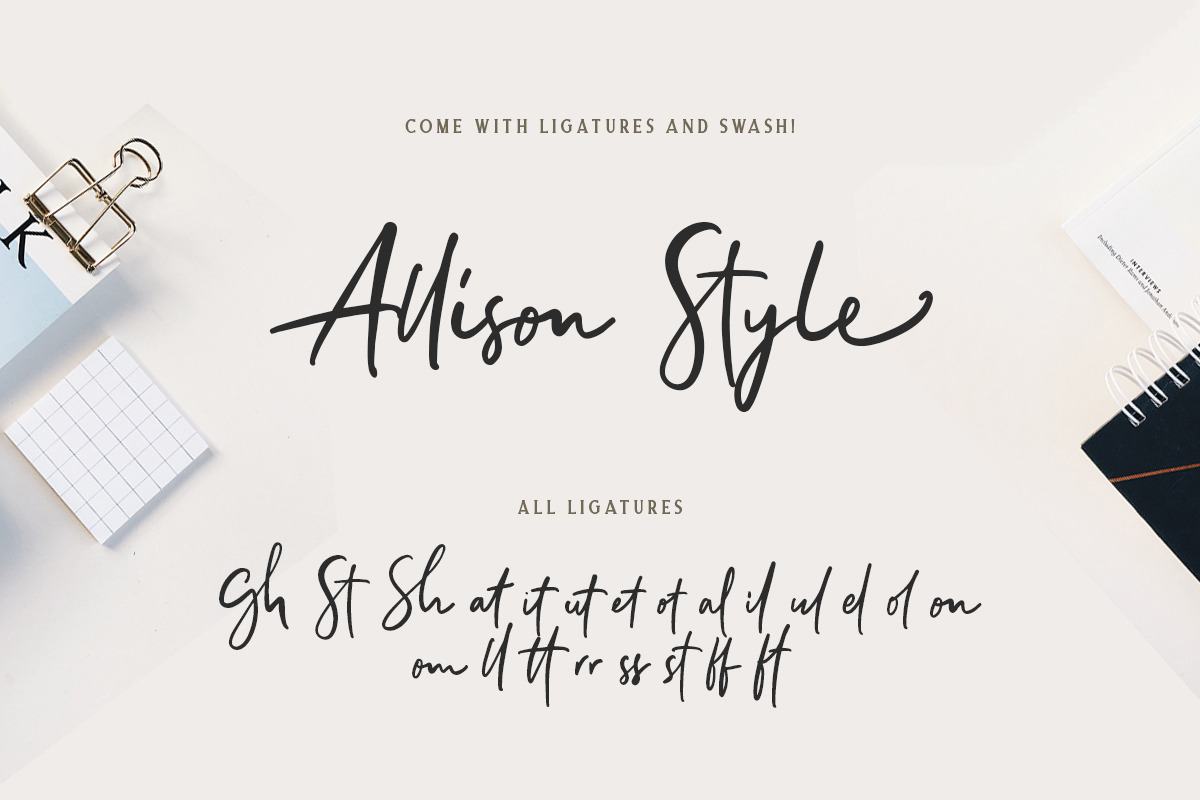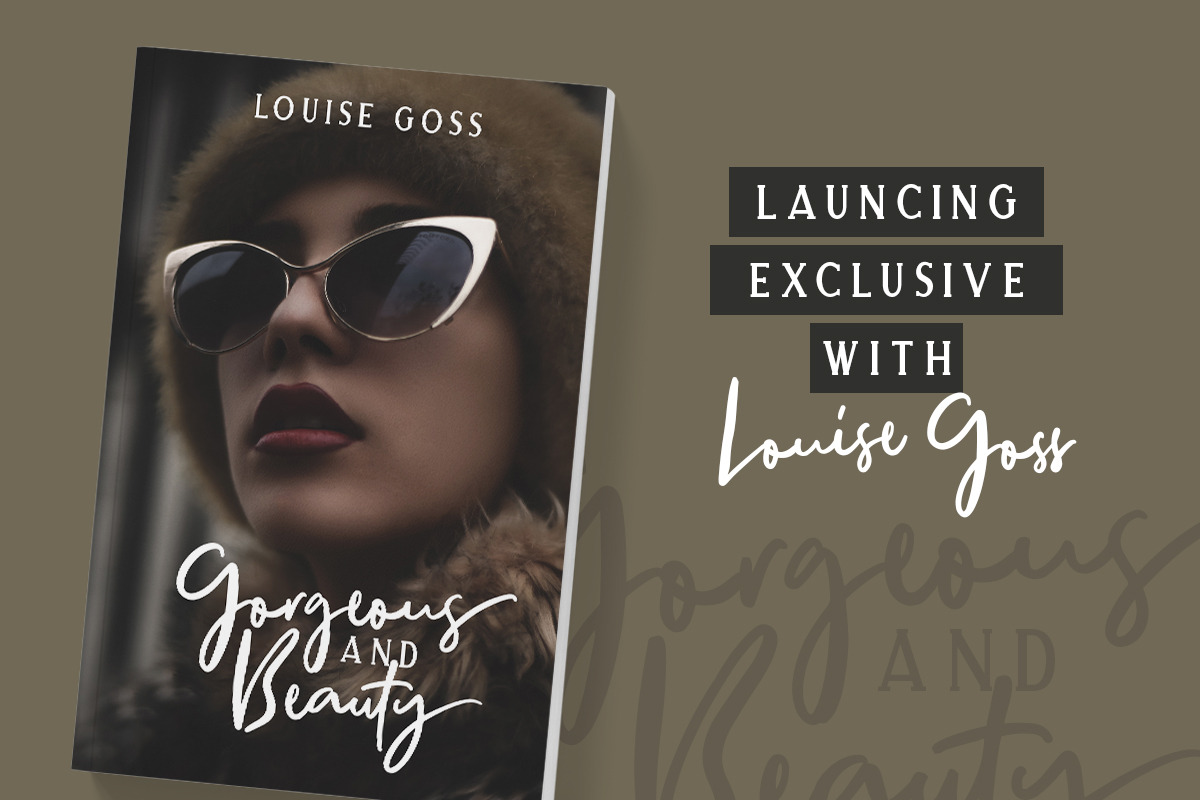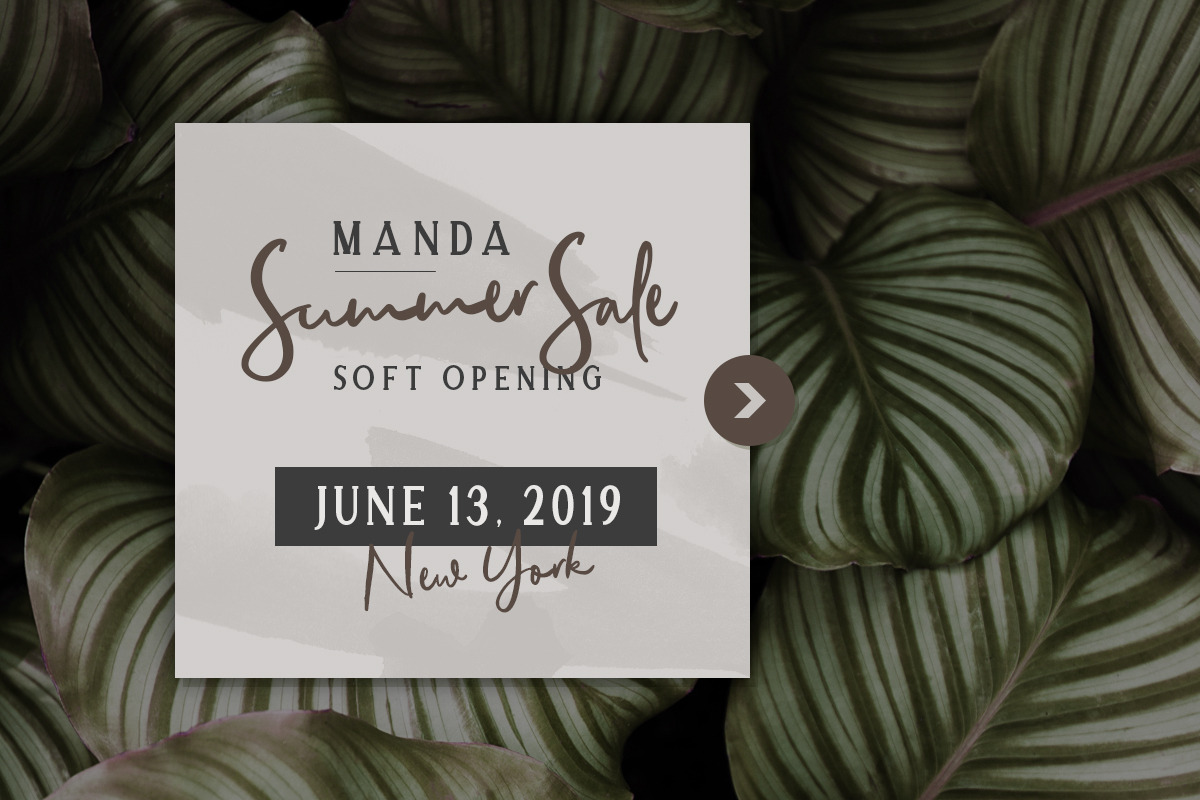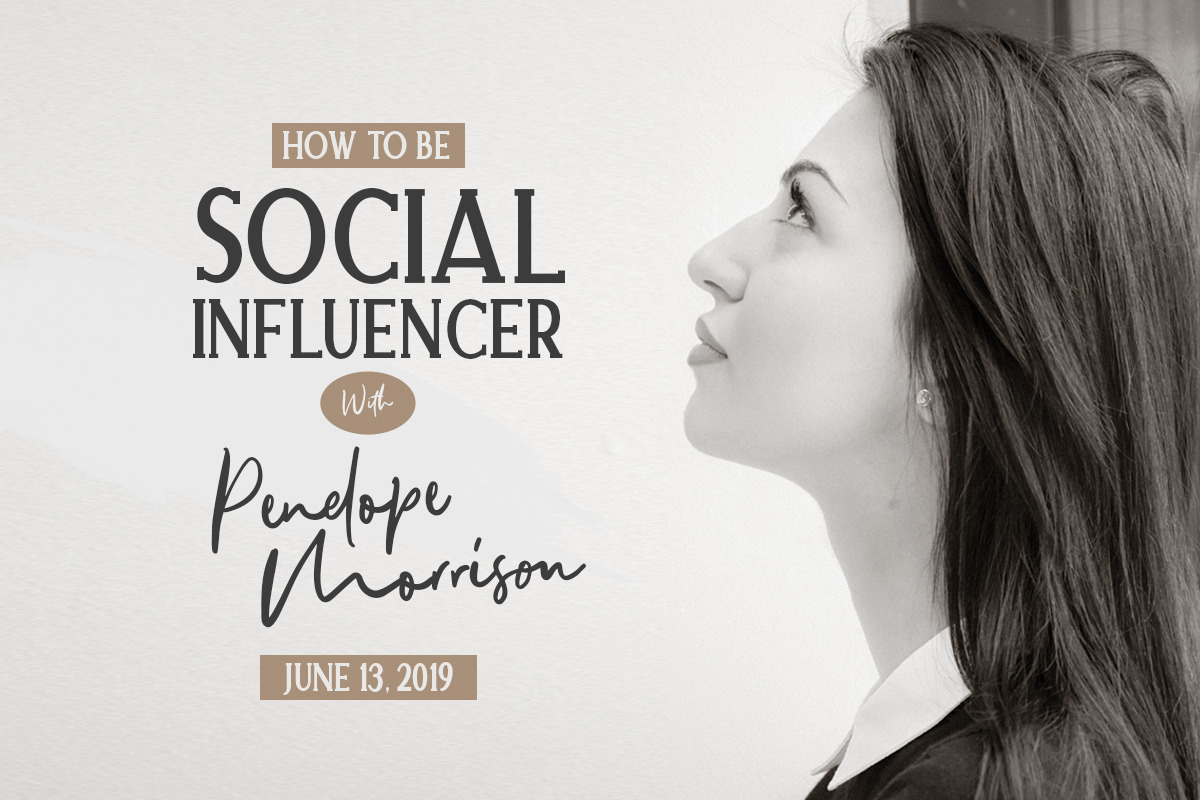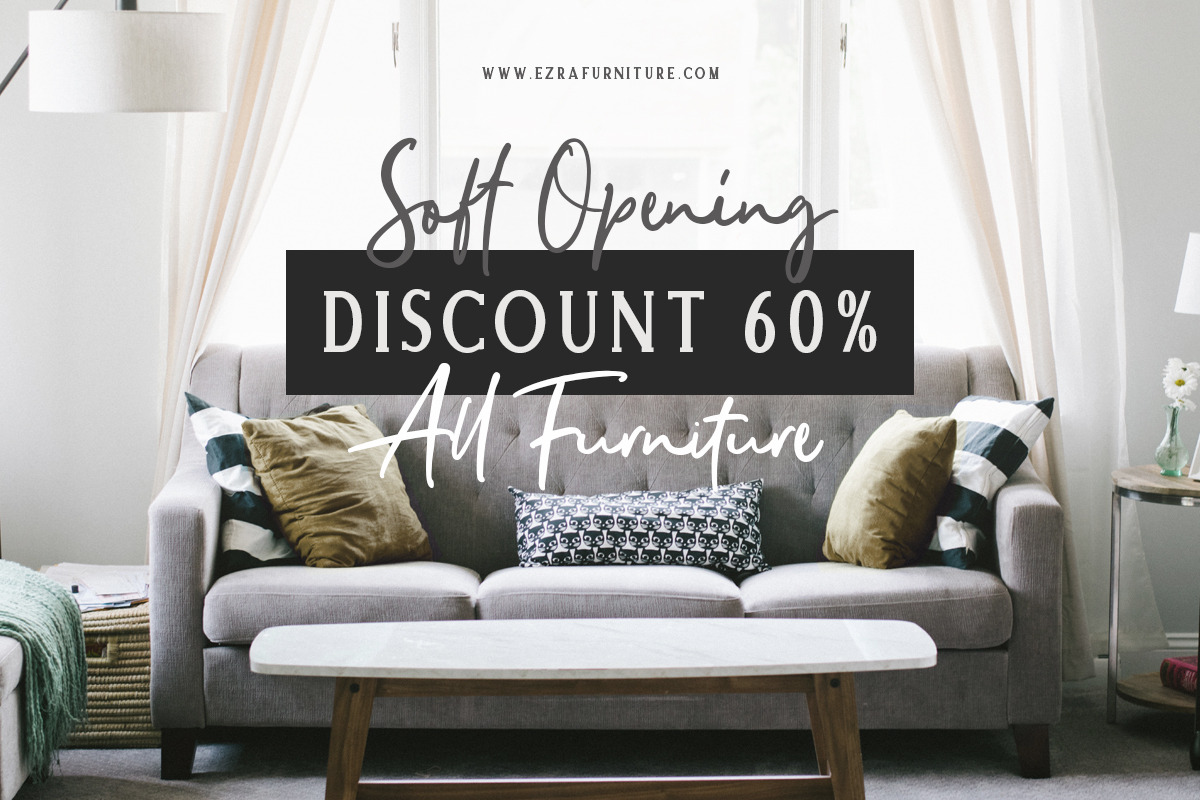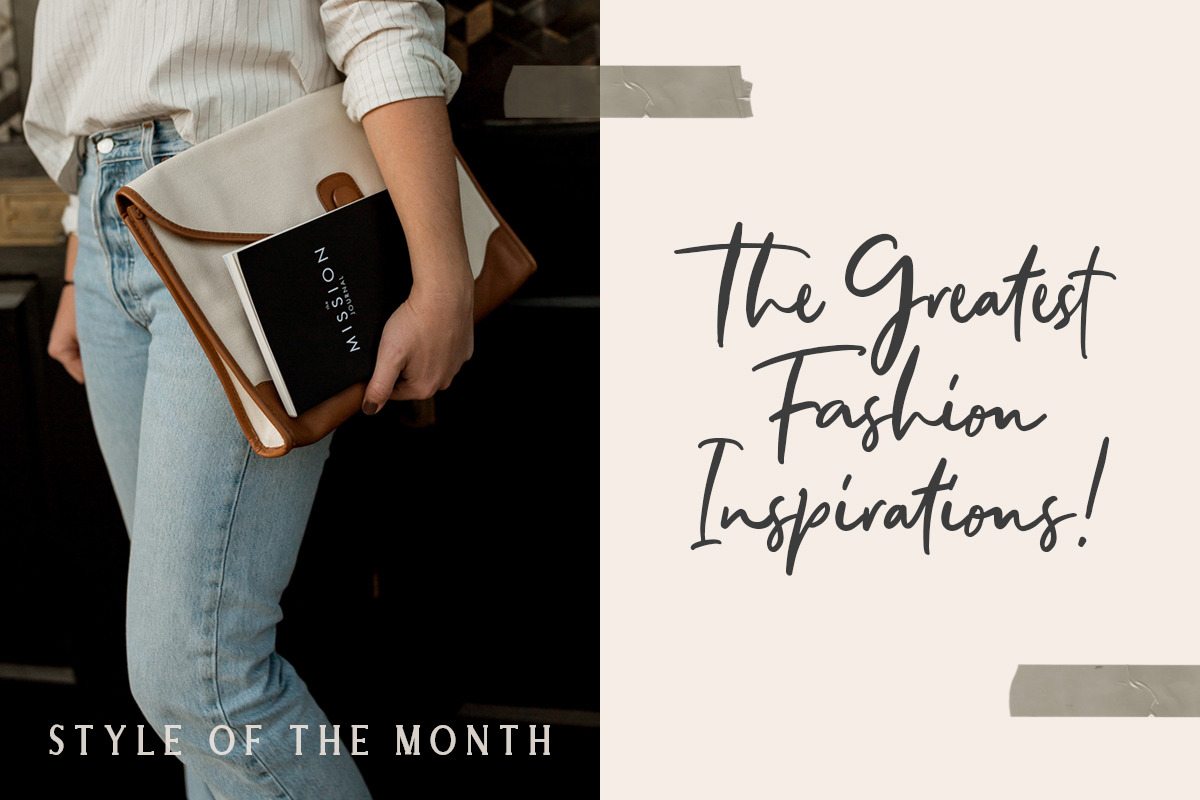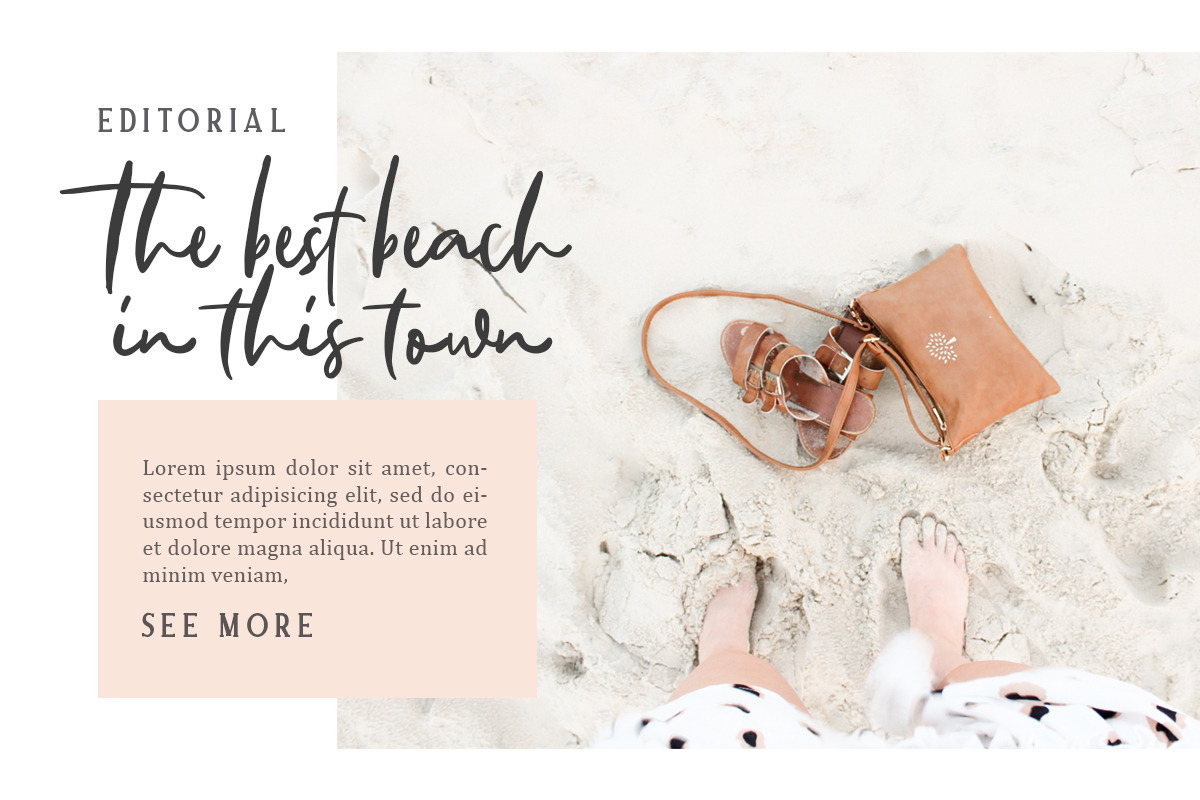
Allison Style - Font Duo
Allison Style - Font Duo | Serif & Script
Allison Style is my newest font duo. Contain two fonts, the delicate serif and a free hand writing script. This font duo also support multilingual, number and symbol, end swash and many ligatures. Also this font already PUA Encoded.
- This font duo also support multilingual, number and symbol, end swash and many ligatures.